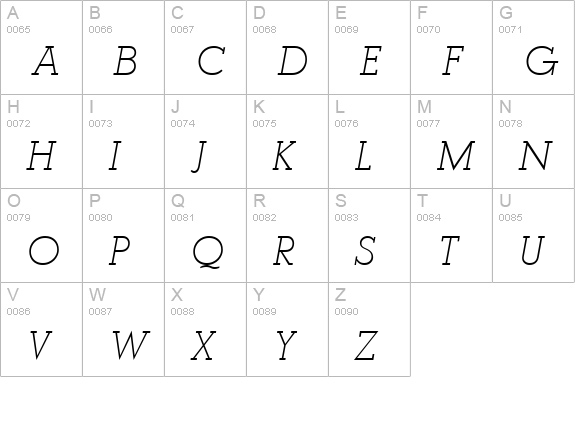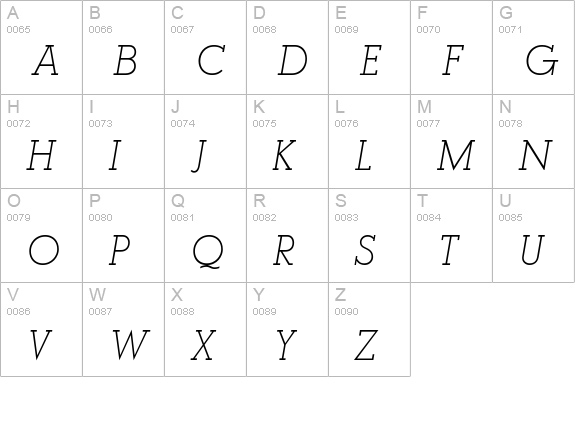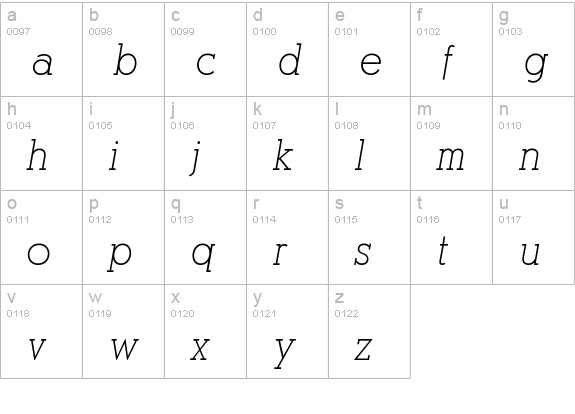
Pogo SSi Italic Font Details
Pogo SSi Italic is a distinctive, italic variant in the Pogo typeface family \xE2\x80\x94 well suited to design and typography projects.
Pogo SSi Italic font is a stylish and modern typeface with a playful twist. Its slanted design exudes a sense of movement and energy, making it perfect for adding a dynamic touch to your projects. The italicized form of the letters adds a sense of sophistication and elegance, making this font a versatile choice for various design applications. What makes Pogo SSi Italic font even more appealing is that it is available for free download at FontsMarket.com. This means you can easily access this unique and eye-catching font without any cost, making it a valuable addition to your font collection. Whether you're working on a branding project, a poster design, or any other creative endeavor, Pogo SSi Italic font is sure to make a statement and elevate your work to the next level. Download it today and unleash your creativity with this exciting and free font!